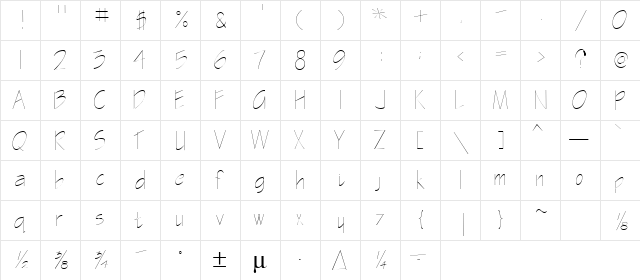
RedPrint
Design Context for RedPrint Typeface
RedPrint takes a measured approach to typography — its balanced proportions and neutral character make it a reliable workhorse for both digital and print work.